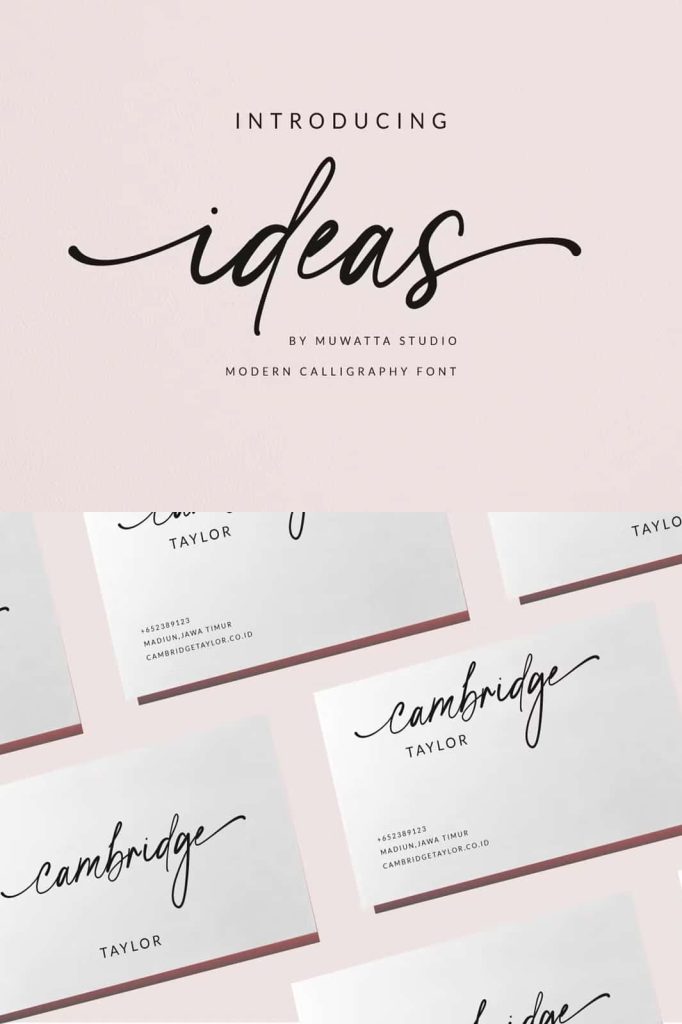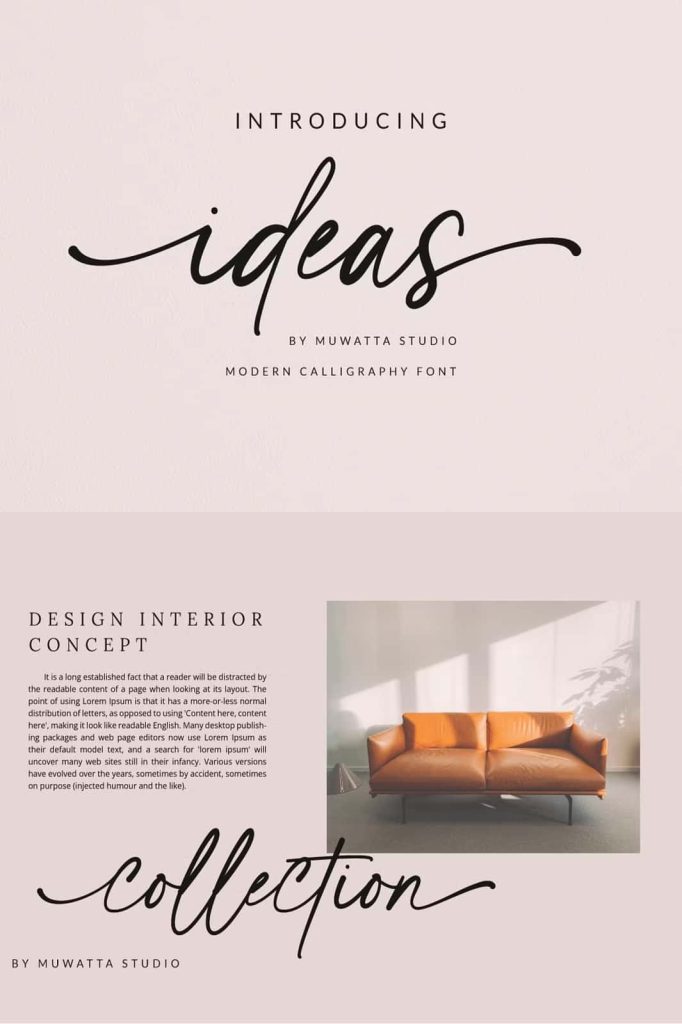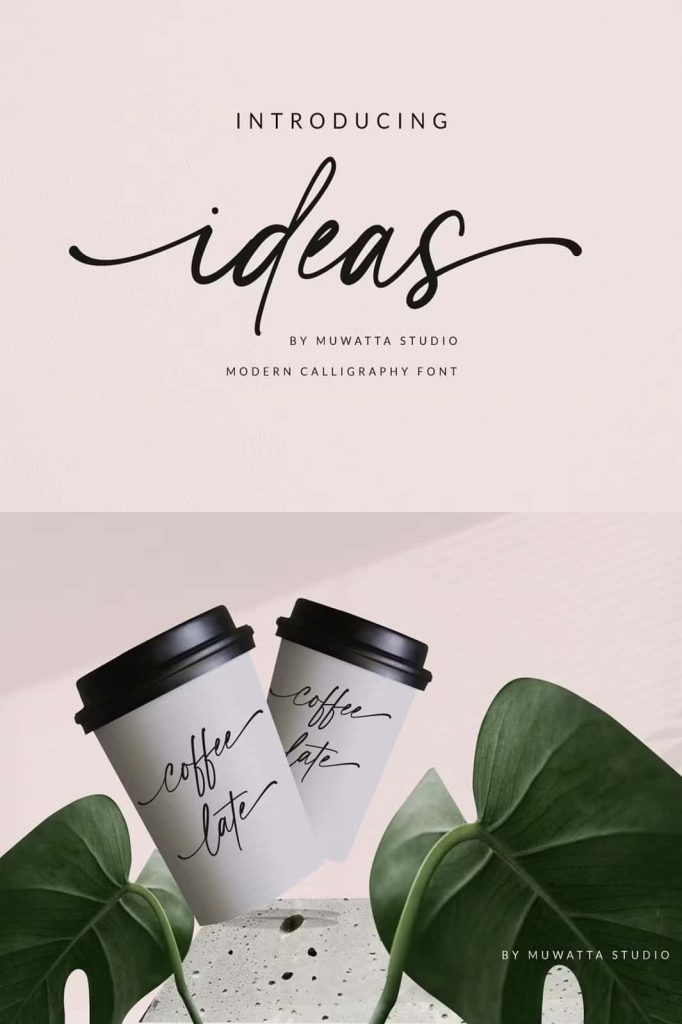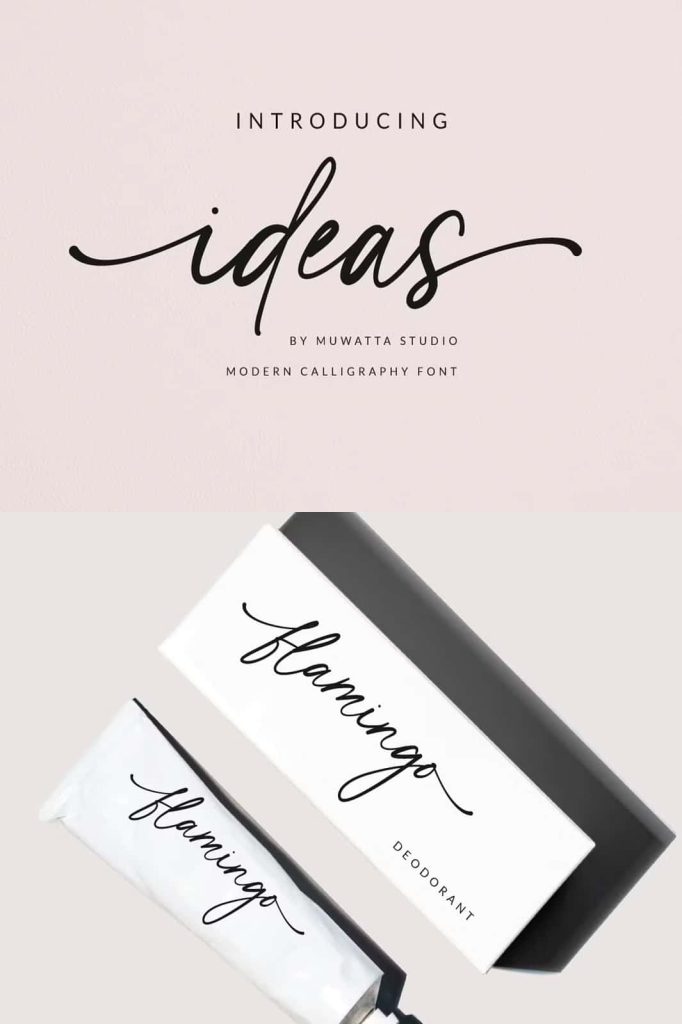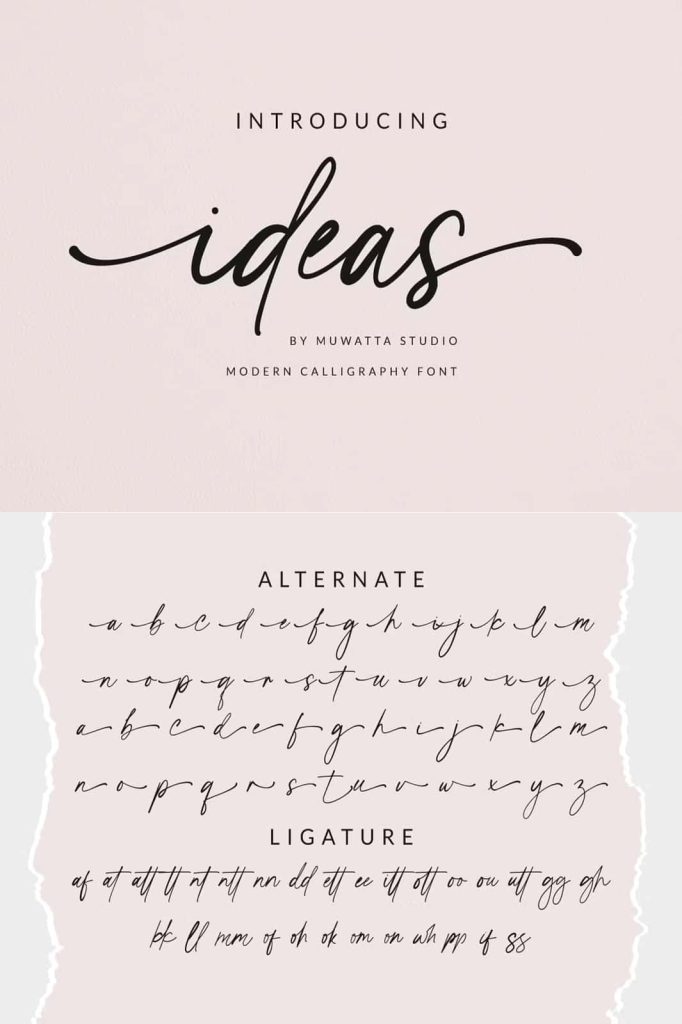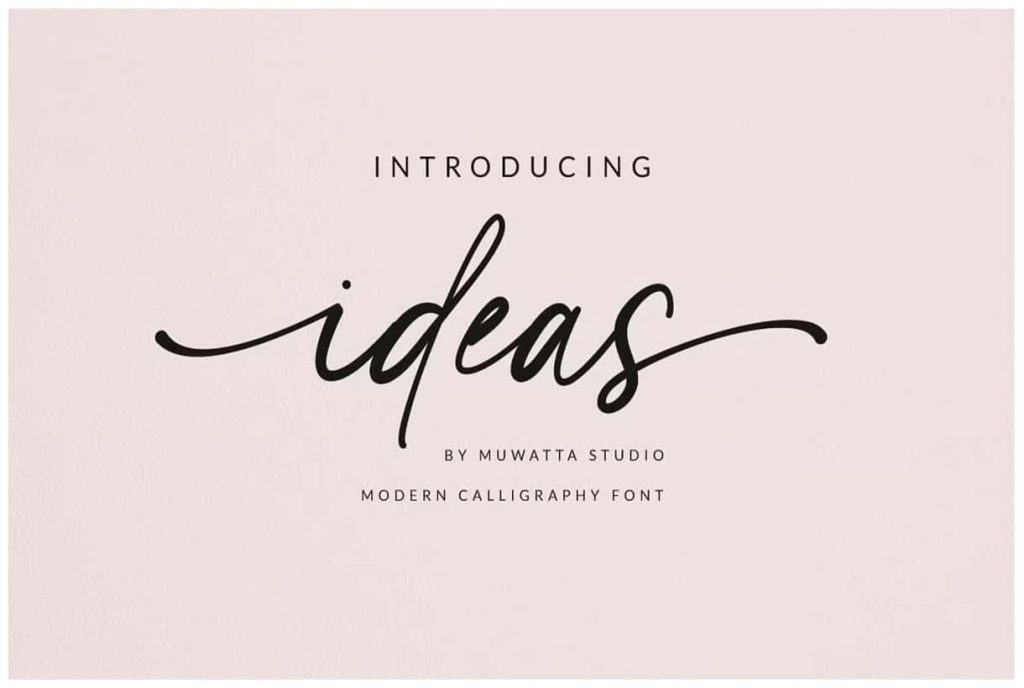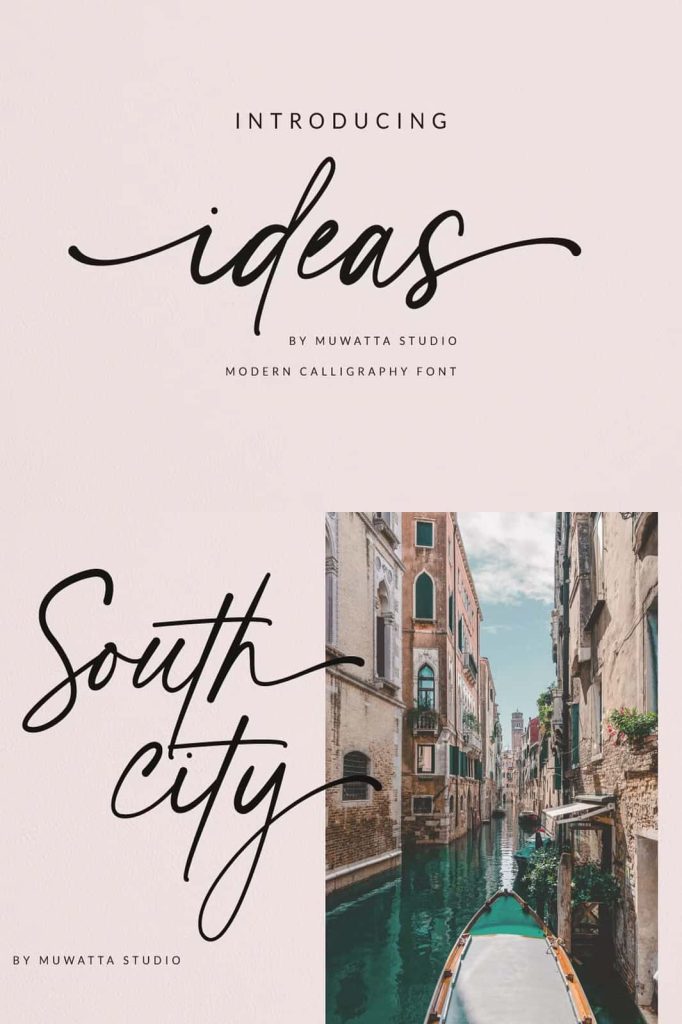
Ideas Modern Calligraphy Font
Ideas is a sophisticated modern calligraphy font created to bring elegance, refinement, and visual harmony into your design projects. With its carefully crafted strokes and fluid curves, this typeface transforms simple text into expressive typography that communicates style and emotion. Designers who want to create memorable invitations, luxurious branding, or fashion-forward visuals will find Ideas to be a powerful and versatile choice.
Elegant Design with Contemporary Appeal
Ideas combines the timeless beauty of classic calligraphy with a modern design approach. Its smooth curves and balanced letterforms create a graceful flow that feels both natural and intentional. The font maintains a polished appearance while still capturing the organic movement of hand-drawn lettering.
This balance allows designers to achieve a refined look without appearing overly traditional. The result is a typeface that fits seamlessly into modern design trends while still honoring the elegance of classic script styles.
Perfect for Invitations and Special Occasions
Ideas works exceptionally well for invitations and event-related designs. Whether you are creating wedding invitations, engagement announcements, or formal event stationery, this font enhances the overall presentation with a sense of sophistication and charm.
Its flowing style adds a personal touch that feels warm and inviting. Designers can use it to highlight names, titles, and key details, ensuring that each element stands out while maintaining a cohesive and elegant layout.
Ideal for Wedding and Lifestyle Branding
In the world of wedding and lifestyle branding, typography plays a crucial role in shaping perception. Ideas helps brands communicate elegance, creativity, and attention to detail. Its refined strokes create a luxurious feel, making it suitable for boutique businesses, event planners, florists, and fashion brands.
By incorporating this font into logos, packaging, and marketing materials, designers can build a consistent and memorable brand identity. The font’s graceful style ensures that every design element feels intentional and visually appealing.
Fluid Curves for Natural Expression
The defining feature of Ideas lies in its fluid curves and smooth transitions. Each letter connects naturally, creating a seamless flow that enhances readability while maintaining artistic expression. This fluidity allows designers to create compositions that feel dynamic and engaging.
Use these curves to add movement to your layouts, guiding the viewer’s eye through the design. The result is typography that not only looks beautiful but also improves the overall user experience.
Versatile Across Print and Digital Design
Ideas adapts effortlessly to both print and digital applications. In print, it delivers crisp and elegant results for invitations, stationery, and packaging. On digital platforms, it maintains clarity and style, making it suitable for websites, social media graphics, and online branding.
This versatility allows designers to use the font consistently across multiple channels. Whether you are creating a physical product or a digital campaign, Ideas ensures that your typography remains cohesive and professional.
Enhance Visual Storytelling
Typography plays a key role in storytelling, and Ideas provides the tools to communicate emotion and meaning effectively. Its elegant design helps convey messages of romance, sophistication, and creativity. Designers can use it to set the tone of their projects and create a strong emotional connection with their audience.
By pairing Ideas with complementary fonts, you can build layered and dynamic compositions. Use it for headlines, signatures, or decorative elements while supporting it with simpler typefaces for body text.
Create Timeless and Memorable Designs
Ideas empowers designers to produce work that feels both timeless and modern. Its combination of classic inspiration and contemporary execution ensures that your designs remain relevant and impactful. The font encourages creativity while maintaining a high level of professionalism.
If you want to elevate your typography and create designs that leave a lasting impression, Ideas offers the perfect balance of elegance and versatility. It transforms ordinary text into a refined visual experience that captures attention and communicates with clarity.